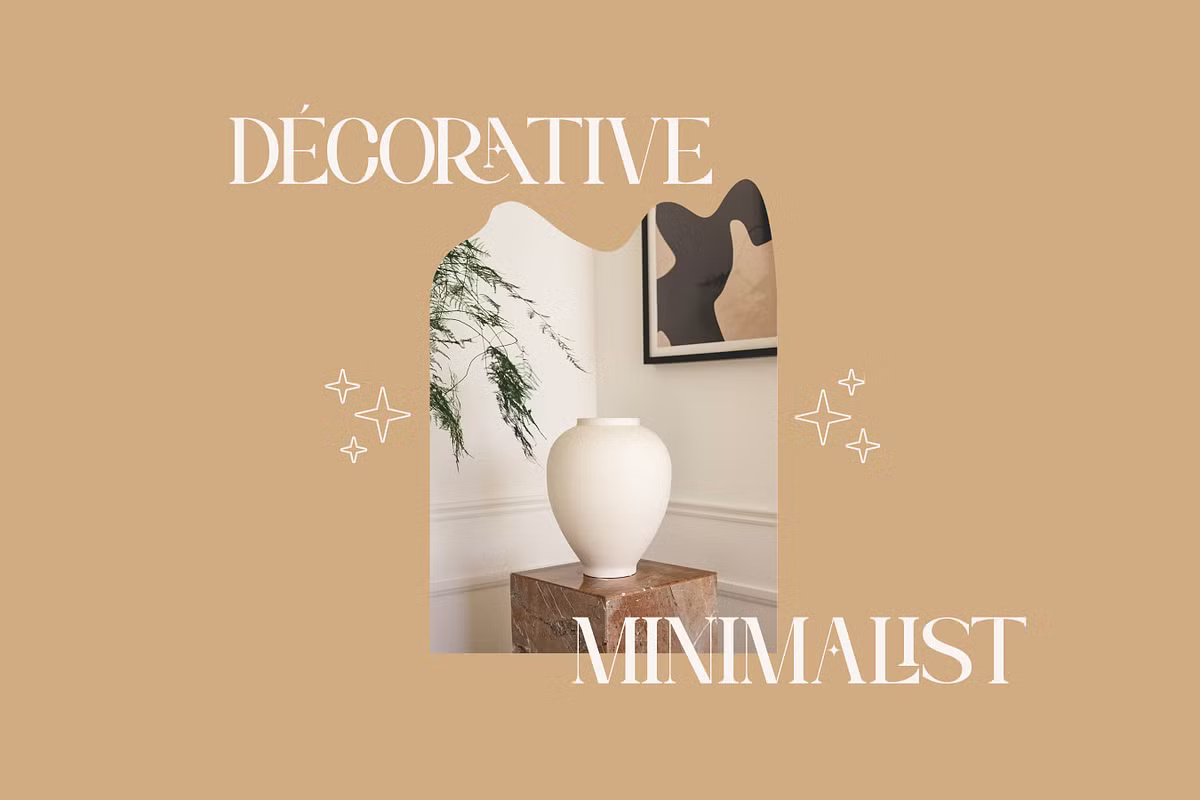
Nirpa Font
Nirpa is narrow, tall and high in contrast. Flawless and Co gave it sharp, small serifs and some joined capitals, so pairs like the LI in “MINIMALIST” on the second preview share a stroke. The cover sets “NIRPA” in cream over an orange wall with an arched doorway and a potted plant.
The “Décorative Minimalist” preview, around a photo of a white vase on a marble plinth, sums up its style: calm interiors and soft colours. The character sheet includes upper and lowercase, numerals, punctuation and a long multilingual set with accented capitals and lowercase.
Best uses for Nirpa
• Interior design studios
• Beauty and wellness brands
• Minimalist logos
• Home decor packaging
• Wedding stationery
Nirpa pairs well with a light sans. Jost keeps a clean geometric feel. Montserrat works for small caps lines. For a serif in body text, try Cormorant Garamond.
What free font is similar to Nirpa?
Italiana and Bodoni Moda are free open-licence serifs with a similar tall, refined look.
How do I get the joined capitals in Nirpa?
They are ligatures and alternates. Turn on ligatures in your app, or pick the joined pairs from the glyphs panel.